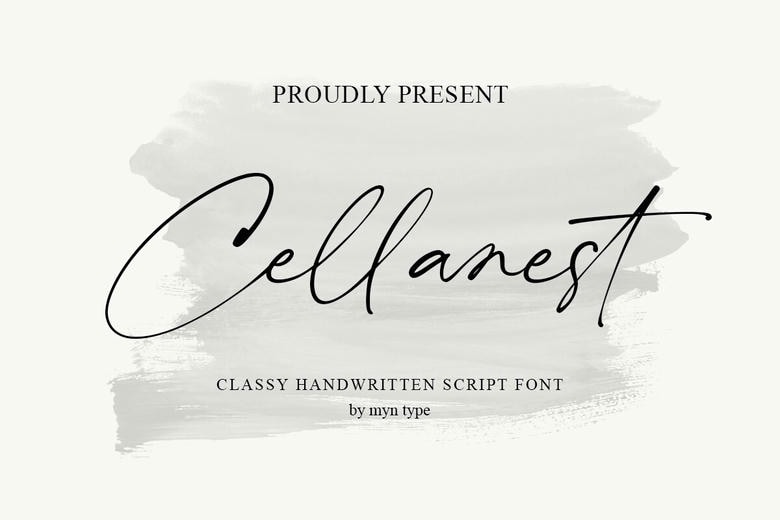
Cellanest Font
Cellanest is a handwriting of high-class and timeless fashion showing elegance, good taste and the attractiveness of the natural handwritten letters. All curve and strokes are perfectly done to create the image of elegance, warmth and personality, such as have the characteristics smooth and fluid strokes and natural ligatures to increase the sense of being handwritten.
The font is ideal in wedding design, social media posts, high-end packaging, branding, calligraphy logos, display products, as well as invitation design. In whether you are designing, Cellanest Font enables you to complete a certain layout with an elegant and sophisticated touch.